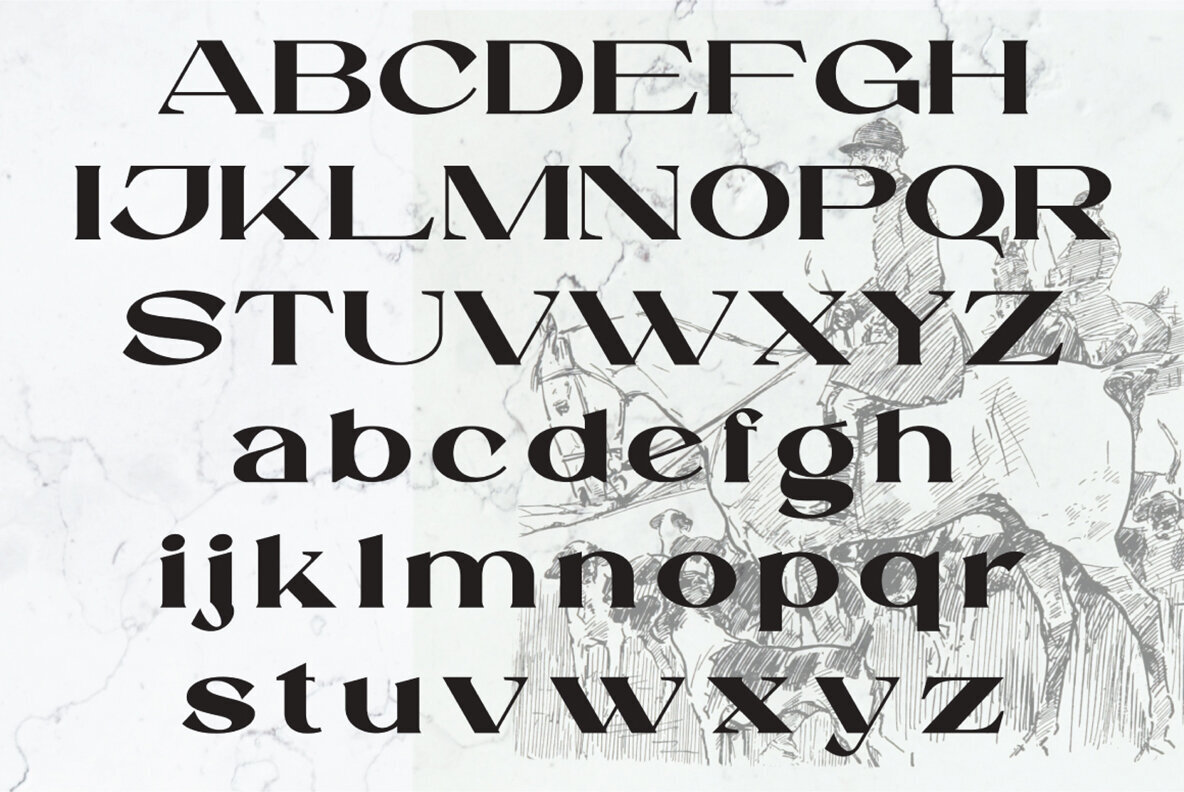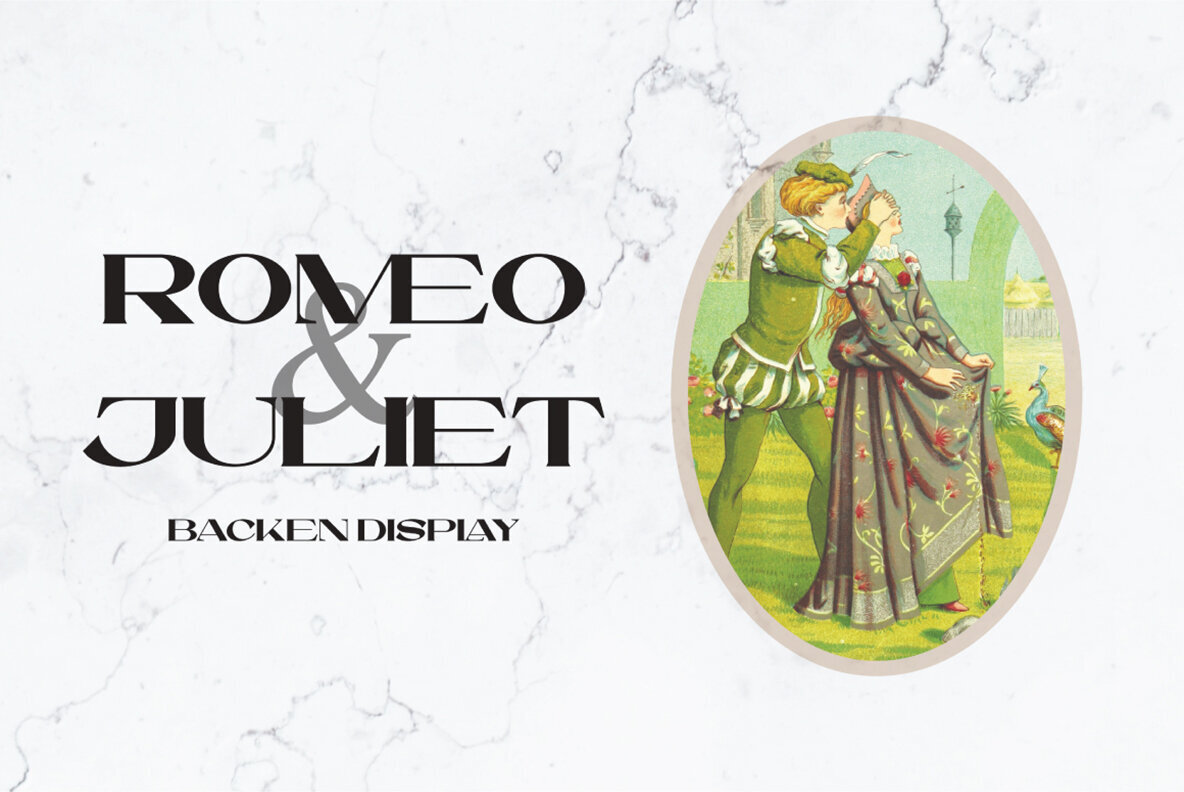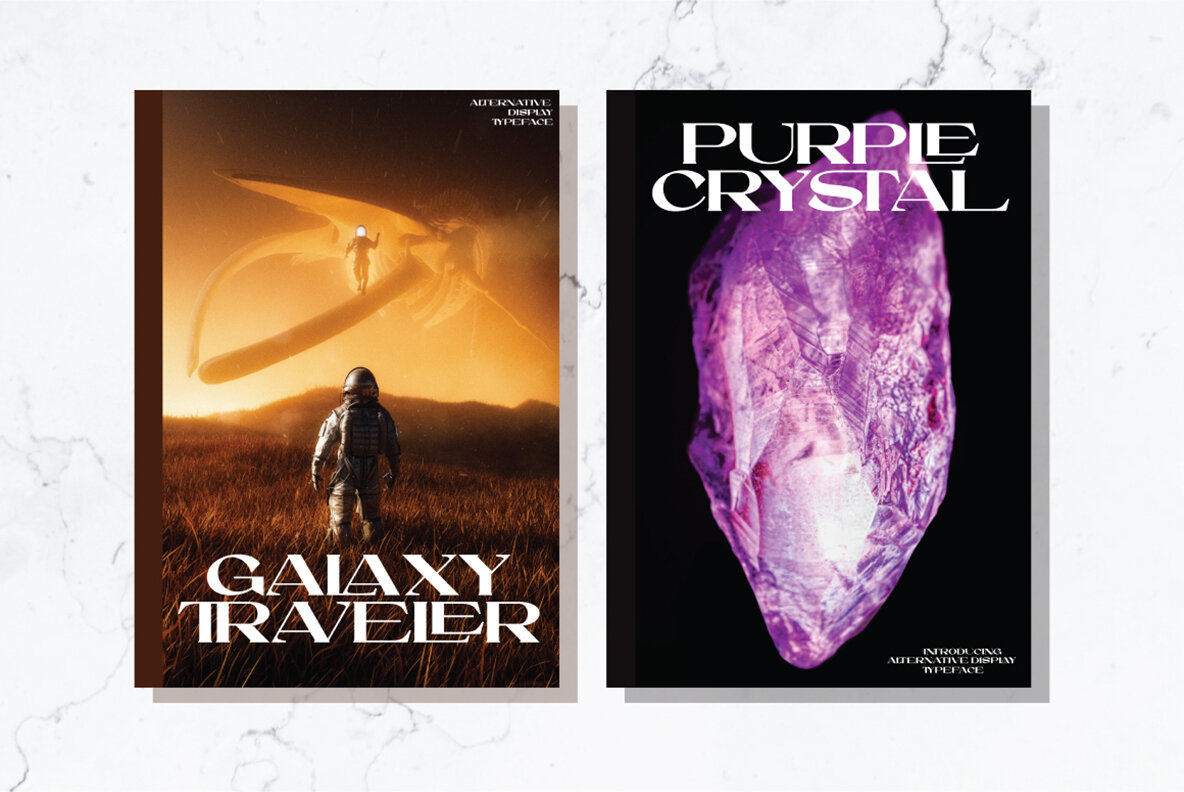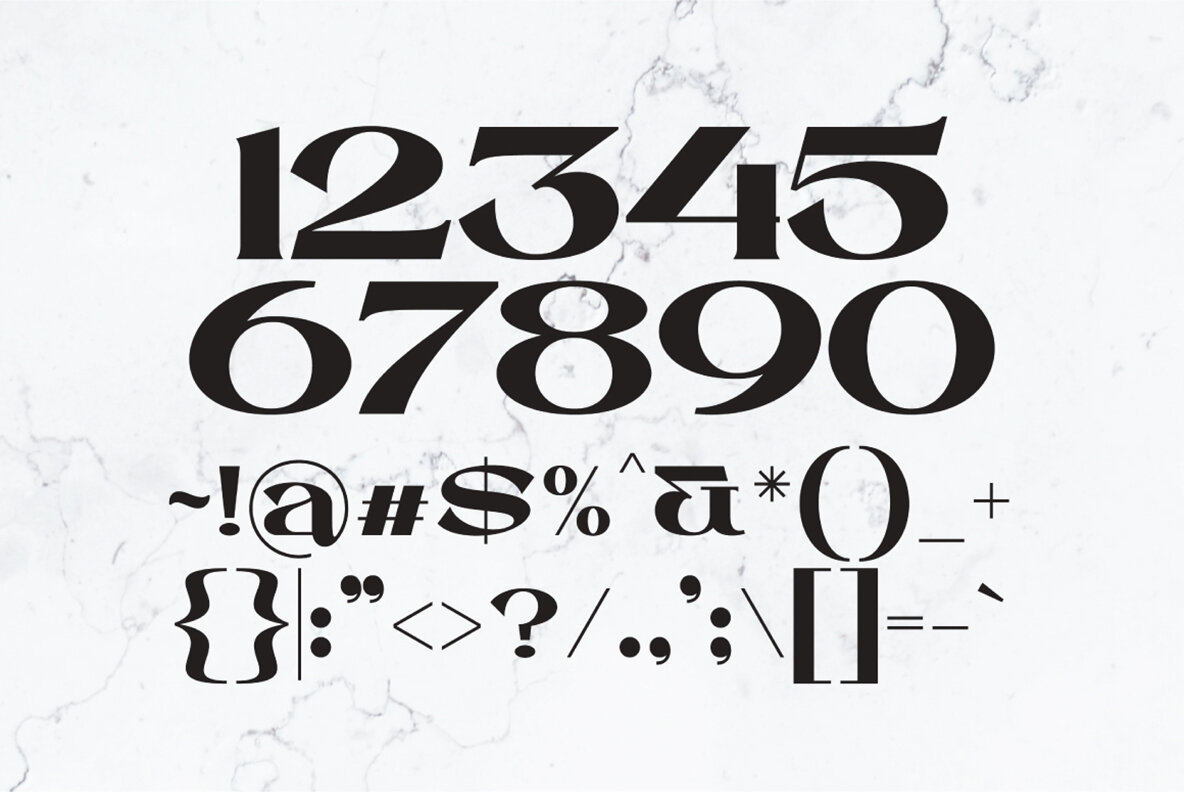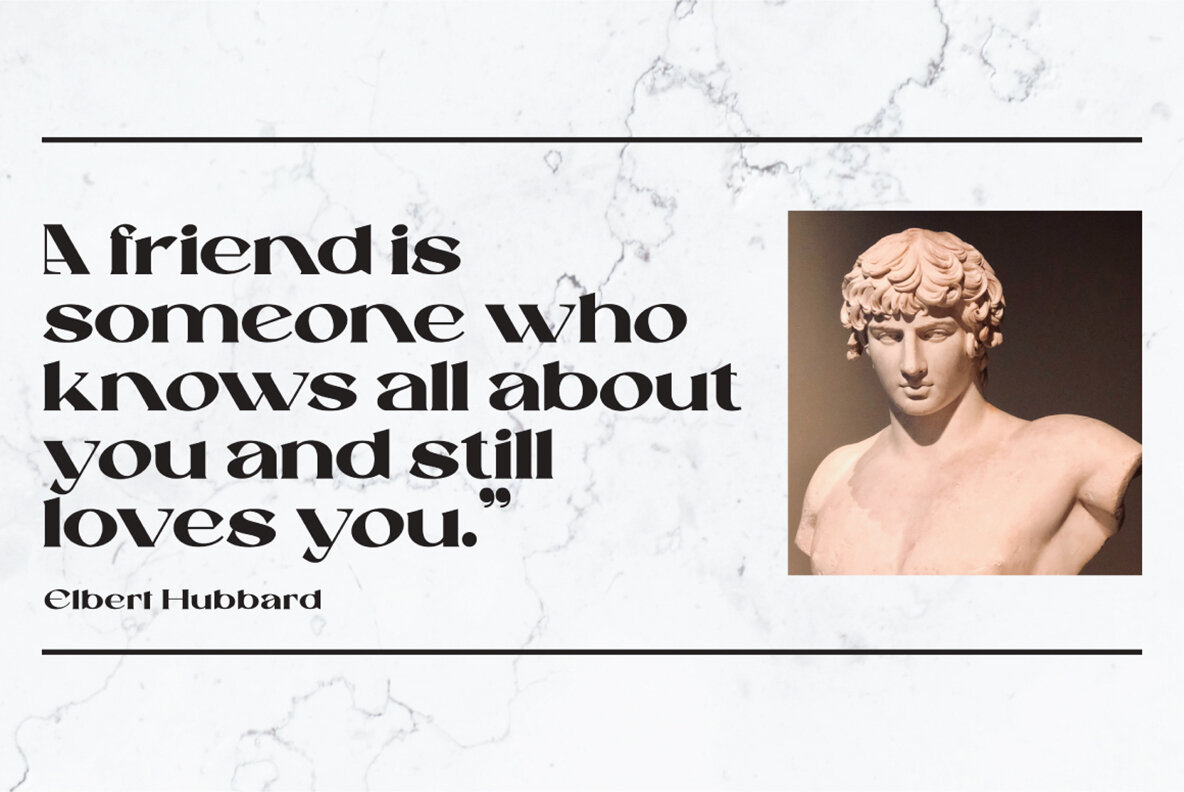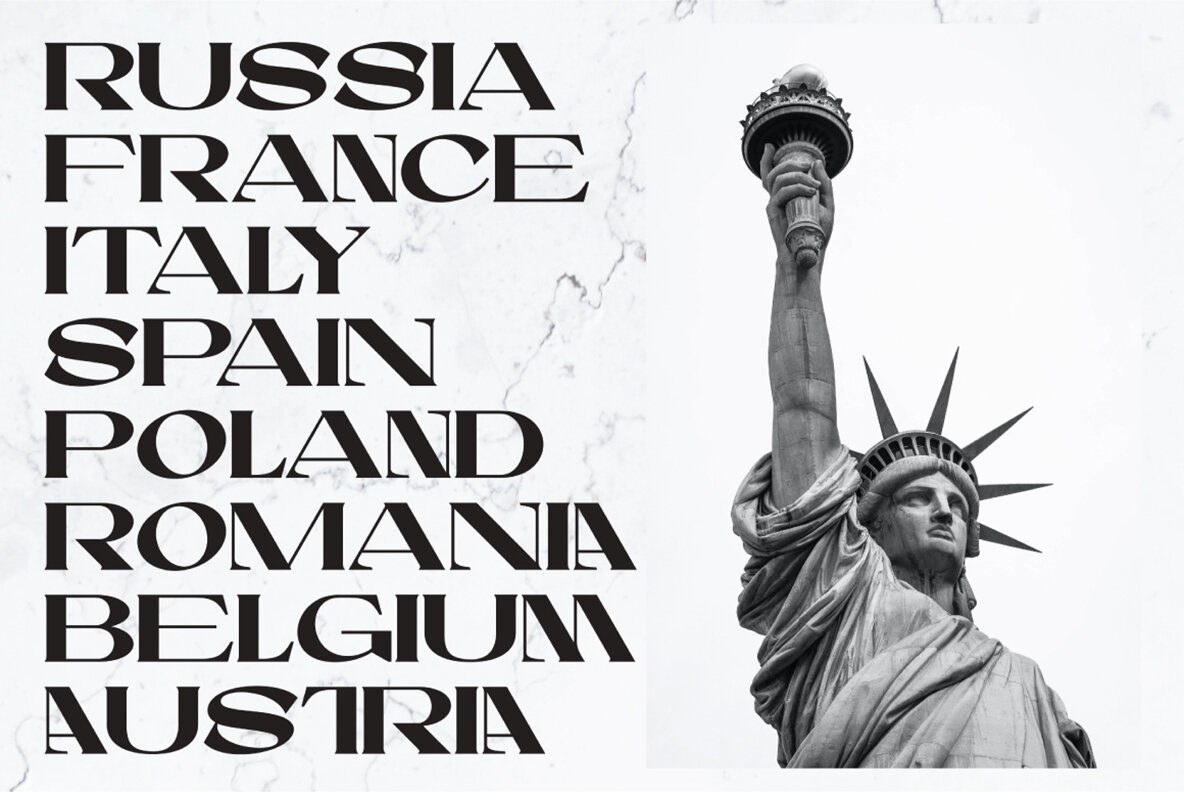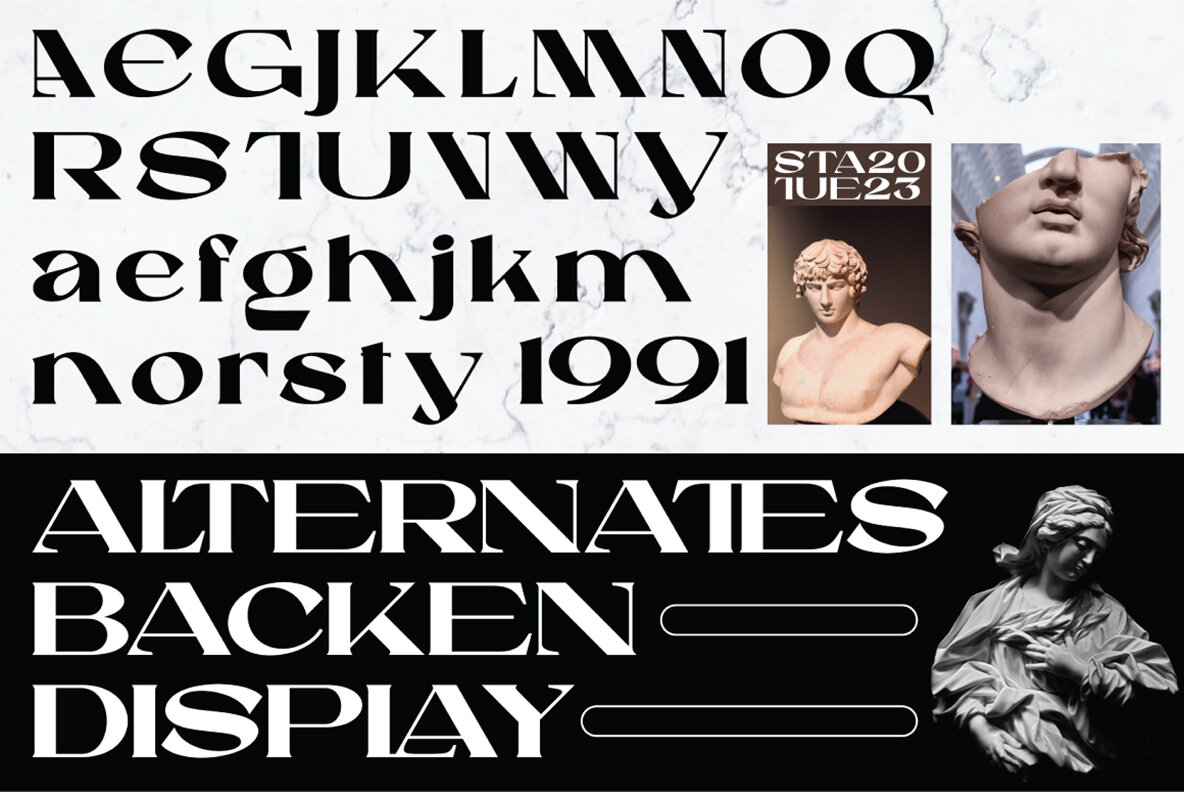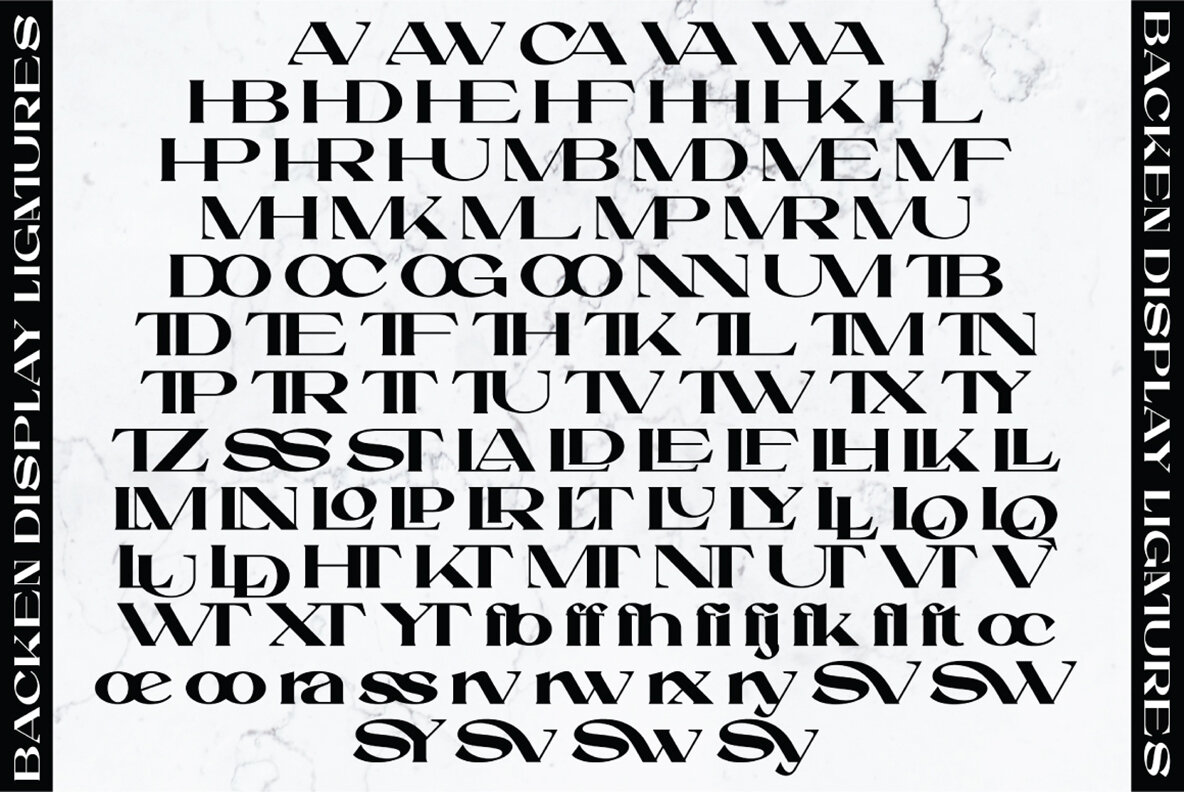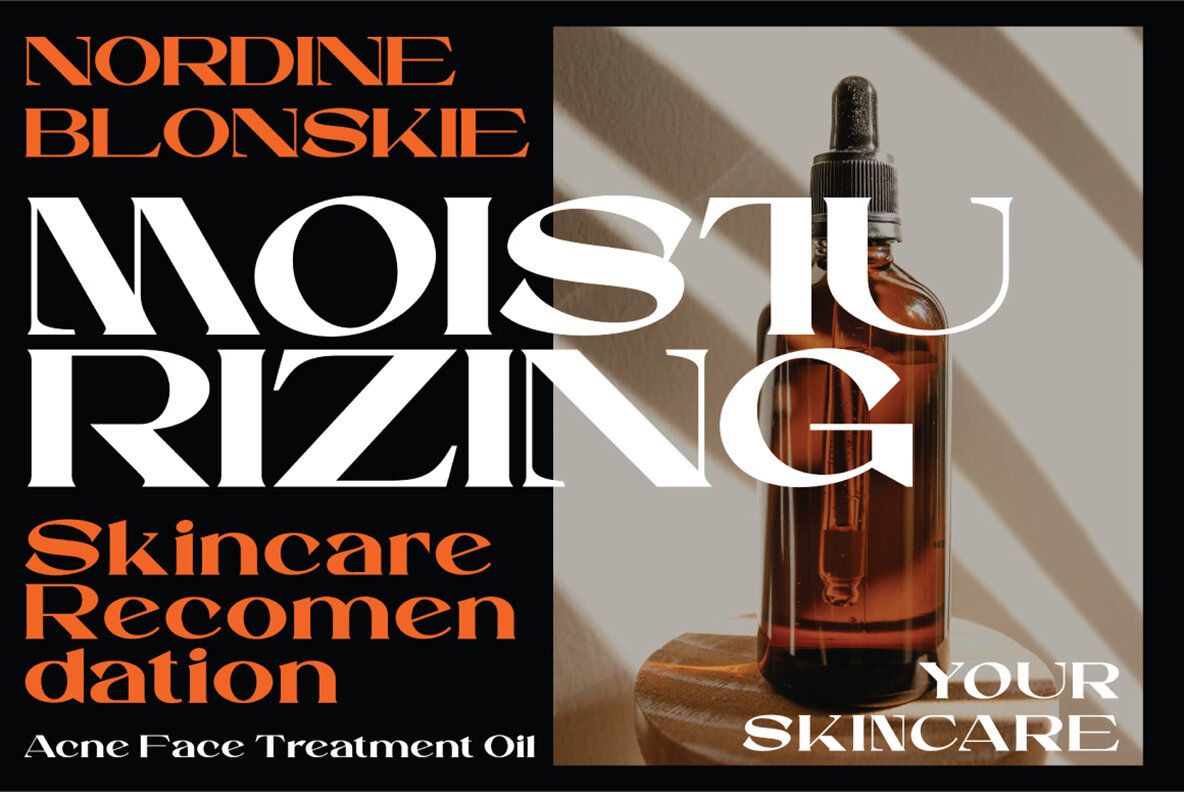
Backen Display Font
Backen Display Regular
Backen is a fresh, modern serif that offers a strong yet elegant style complemented by a dancing baseline. It's ideal for various applications such as invitations, greeting cards, branding materials, business cards, quotes, and posters. This display typeface is part of a bold, modern collection that stands out at display sizes and ensures clarity in text sizes. The triangular serif shapes and distinctive letter design exude strength, making it perfect for logos and editorial use. Easily accessible in Adobe Illustrator, Adobe Photoshop, and Microsoft Word, Backen requires no additional design software. Enjoy adding this font to your collection! For any inquiries, feel free to reach out.Backen: Modern Serif with Strong Style and Dancing Baseline